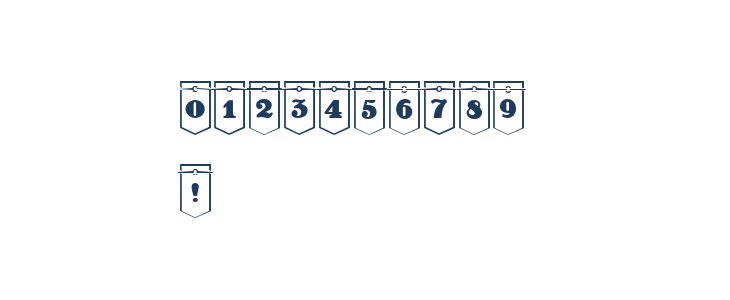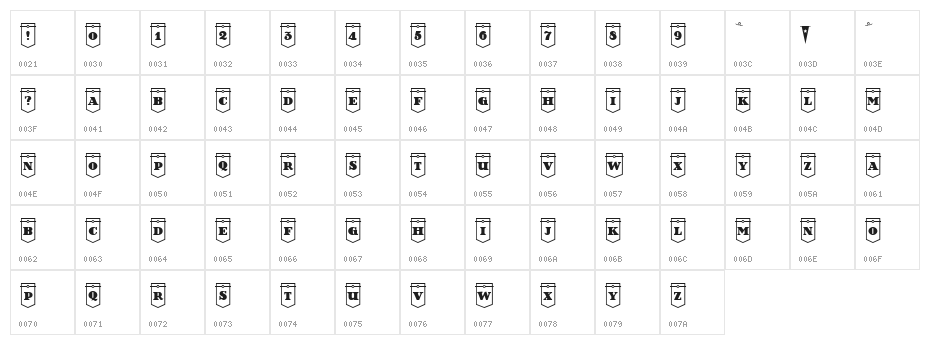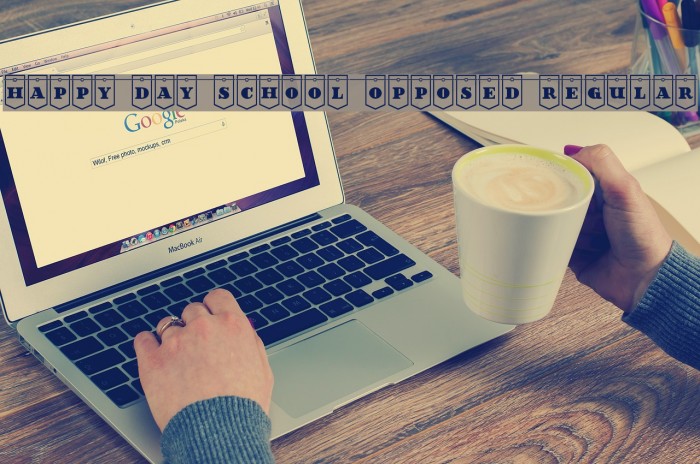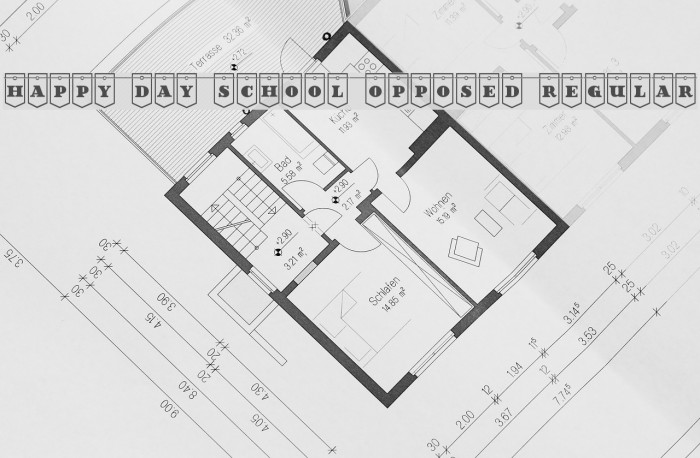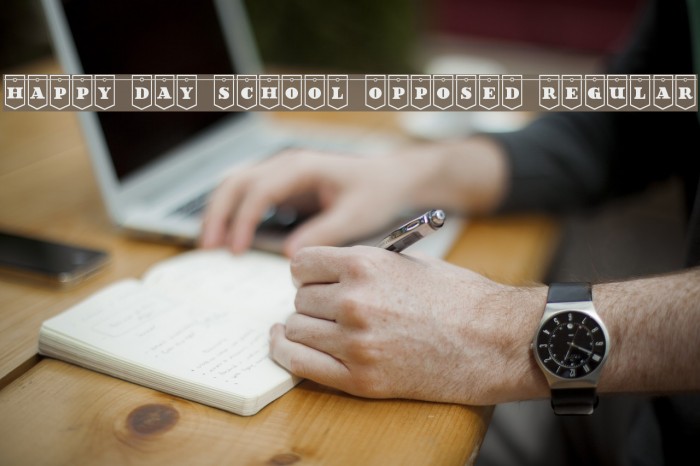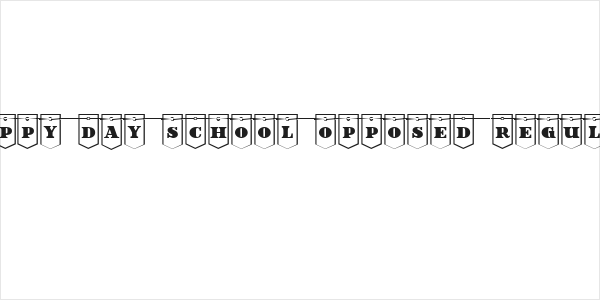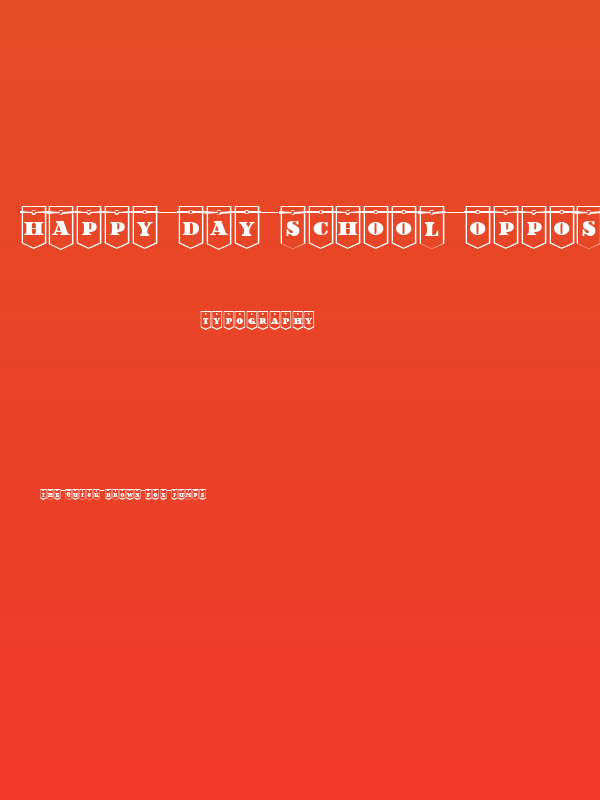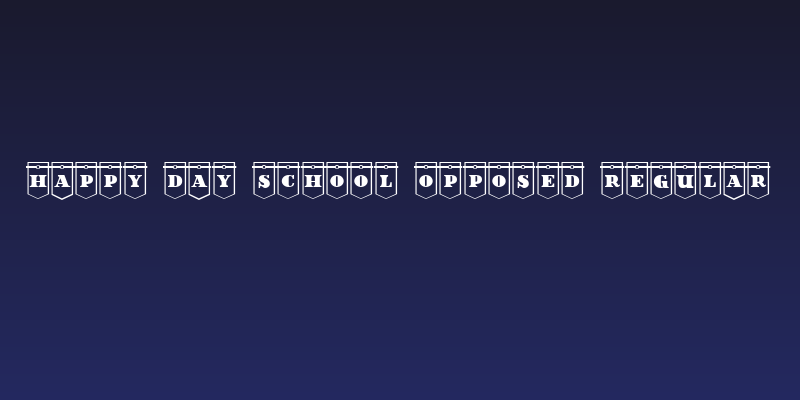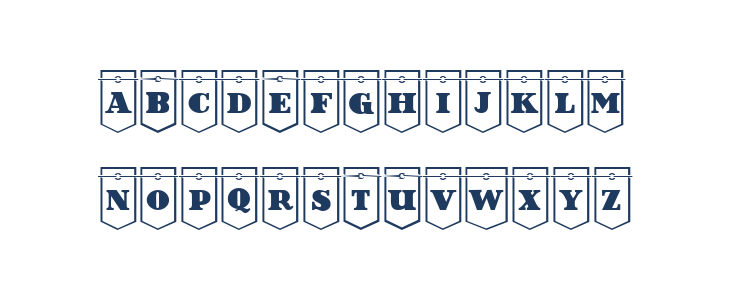
Happy Day School Opposed Regular Font
Happy Day School Opposed Regular Description
This font features a bold, playful design with each character enclosed in a banner-like shape, giving it a festive and celebratory appearance. The uppercase letters are prominent and well-defined, making them ideal for attention-grabbing headlines or titles. The numbers and special characters maintain the same bold style, ensuring consistency across different uses. The overall look is reminiscent of school banners or party decorations, making it suitable for educational or celebratory contexts. The design is straightforward yet impactful, with a strong presence that commands attention.
| Use Case | Headlines, Logos, Banners |
| Proposed Projects | Perfect for school event posters, party invitations, banners, and educational materials. |